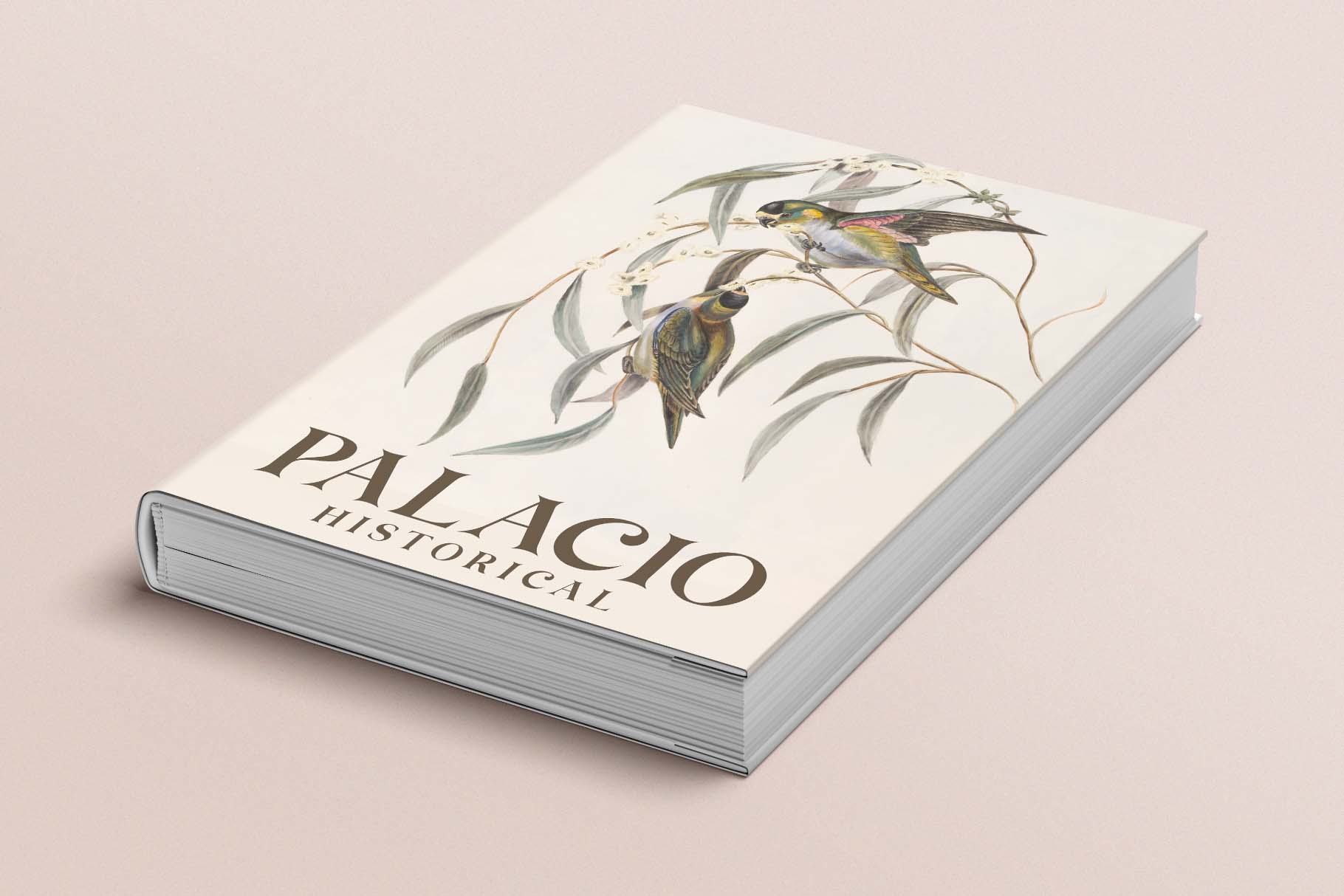
Brown Falco Font
Brown Falco Serif Font
we created especially for branding needs, with an alternate in unique shape adds value to your brand. It is so nice to leverage designers or product owners that need solutions to make their design look more classic and elegant. And especially for satisfy font, support multilingual languages, numbers, punctuation, and alternative.